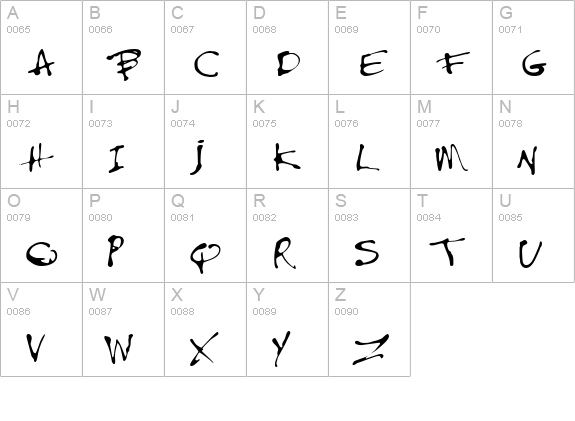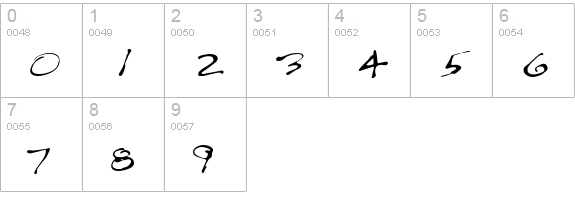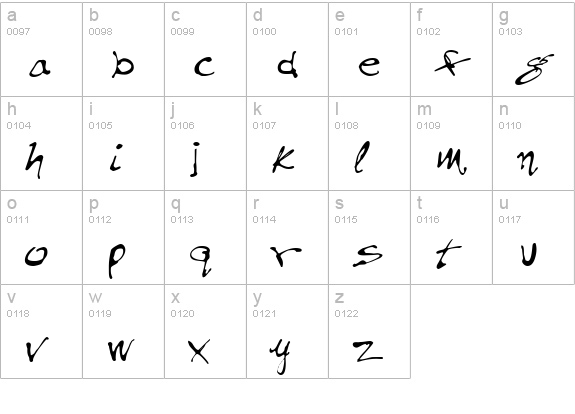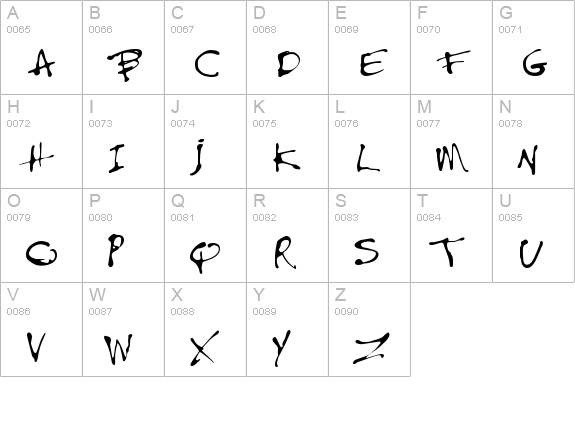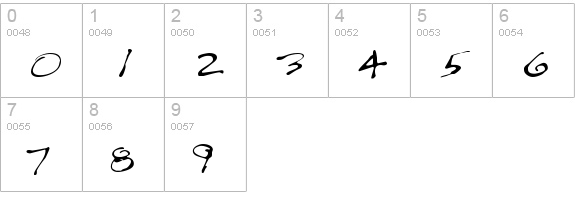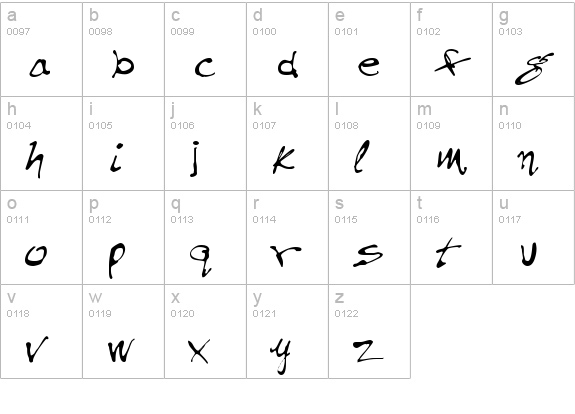
Introducing PFInkPen font, a whimsical and playful typeface that adds a touch of creativity to any project. With its hand-drawn appearance and charming irregularities, PFInkPen exudes a sense of artistic flair and uniqueness. This font is perfect for adding a personal touch to invitations, greeting cards, posters, and more. Best of all, PFInkPen is available for free download at FontsMarket.com. Whether you're a seasoned designer looking to expand your collection or a novice seeking a fun and versatile font, PFInkPen is a fantastic choice. Embrace your creativity and let PFInkPen bring your designs to life with its fun and engaging style. Download it now and start adding a pop of personality to your projects!